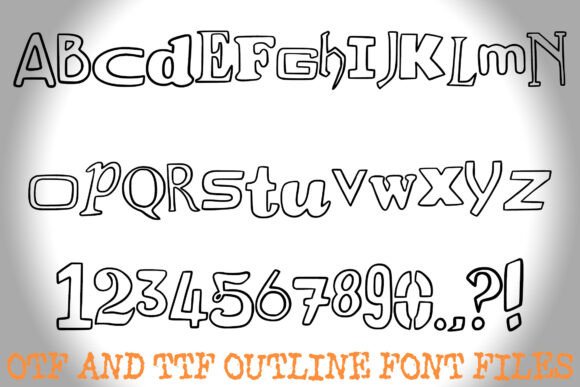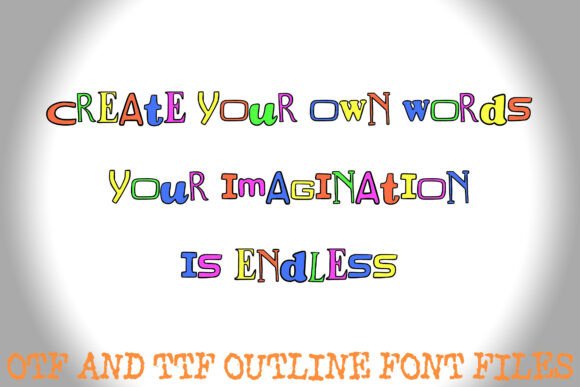
Introduction to Ransom Note Font
Unleash the unexpected with the Ransom Note Font.
This truly unique display typeface offers an arresting, hand-drawn aesthetic where no two letters quite match Featuring a chaotic mix of irregular serifs, playful sans-serif curves, and inconsistent baselines, this font immediately conveys a sense of urgency, mystery, or raw artistic energy, mimicking the look of traditional ransom note clippings.
Key Features of Ransom Note Font
Why Choose Ransom Note Font?
Ransom Note Font offers exceptional quality and versatility, making it a valuable addition to your design toolkit. Whether you’re creating for personal projects or commercial use, Ransom Note Font delivers professional results.